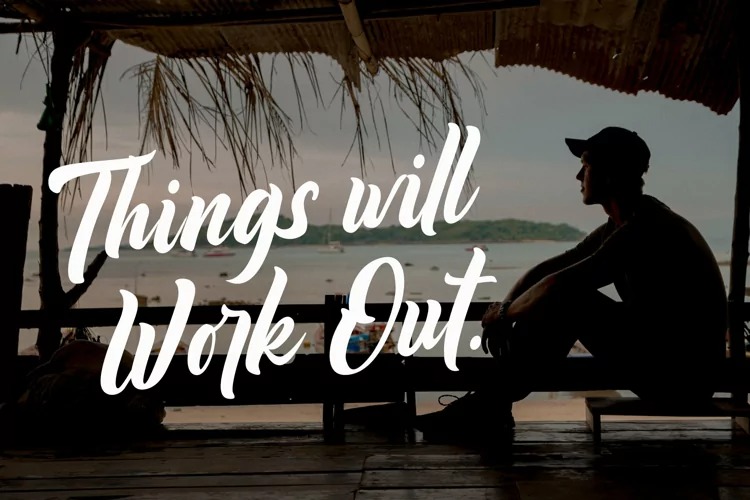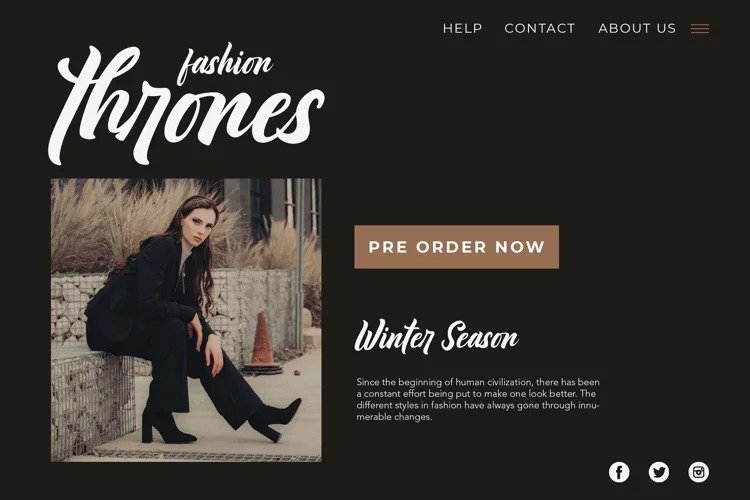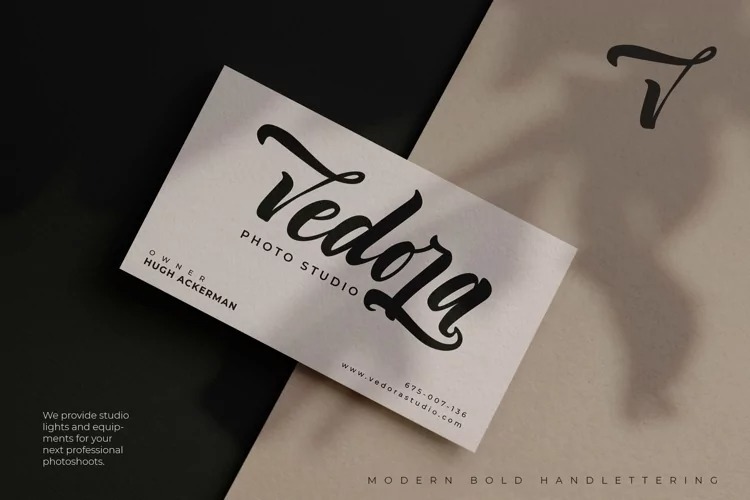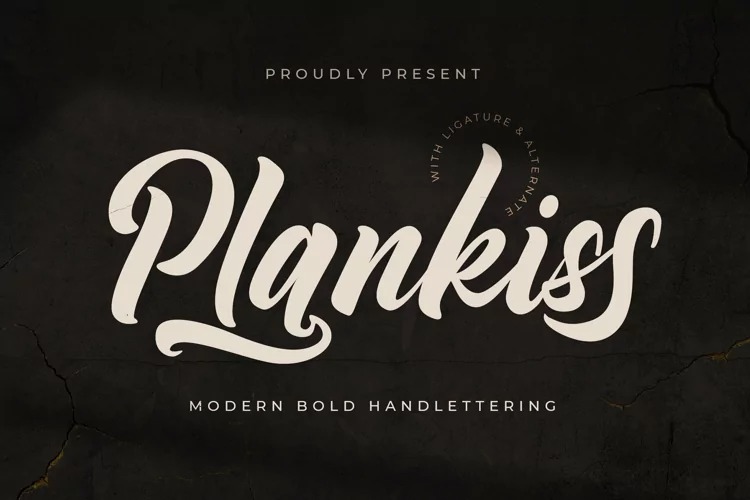
Plankiss Script Font is a brush lettering font inspired by the signature retro and vintage designs that can be found in shop windows and billboards on the street. Its friendly feel makes this font incredibly versatile, fitting a wide range of contexts. Add it to your creative ideas and notice how it makes them stand out
Plankiss